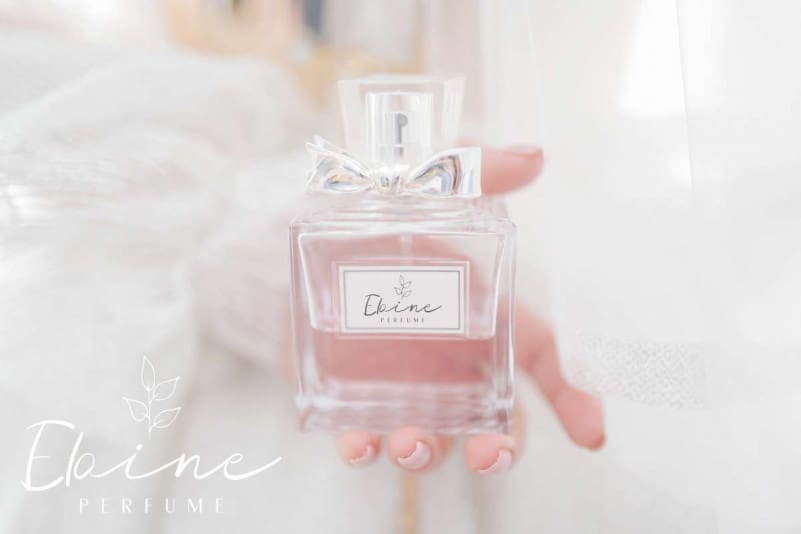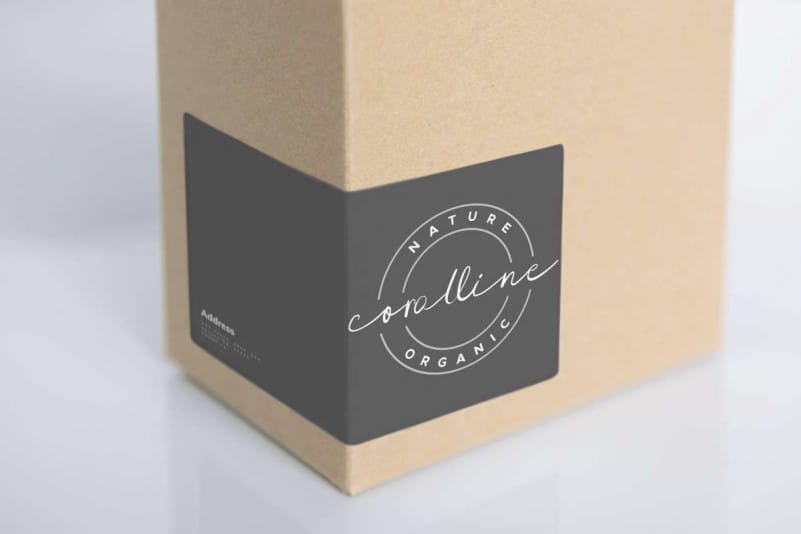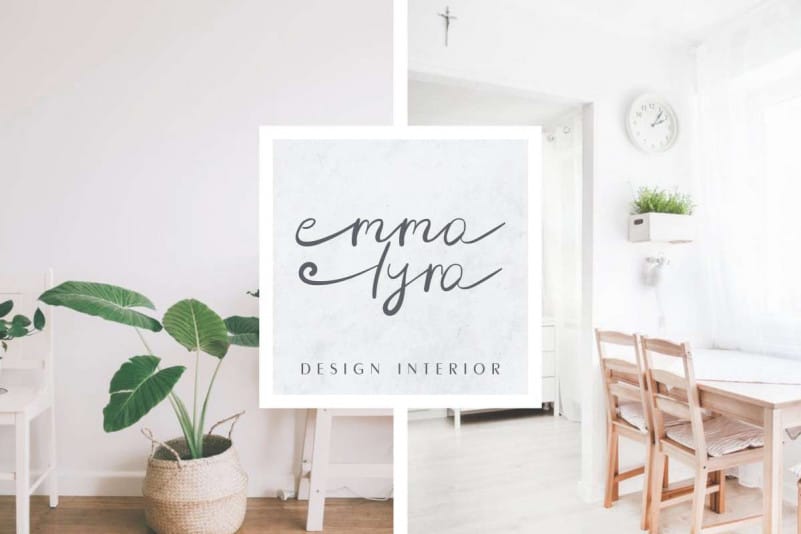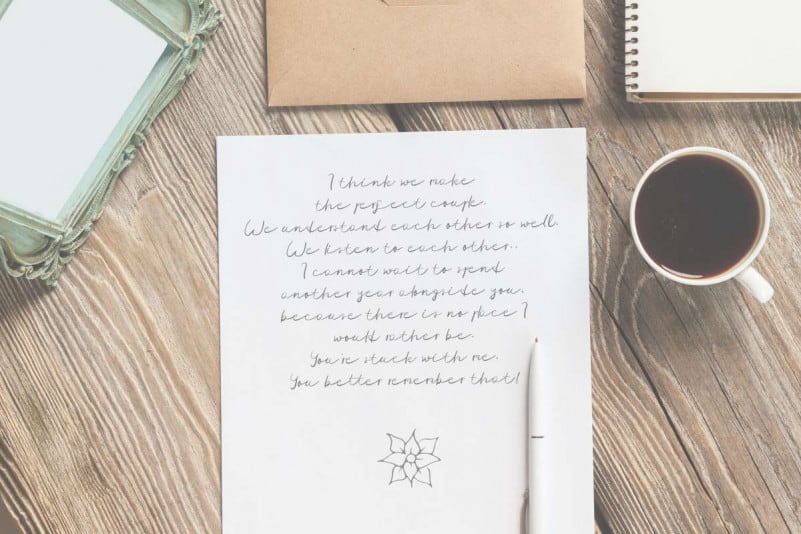
Shadow Over Signature Script Font
Shadow Over Signature Script Font is an exclusive brush script typeface with hand style. This font has a great characters set, perfectly managed with well spaced and kerning. The theme style of this font will be natural look, luxury, glamour, vintage, femine and classic brush calligraphic style. You wont find any where else, the font like Shadow Over Font
Shadow Over Signature Script Font will be great for any projects including : branding, logo, stationery, business card, signage, flyer, brochure, comic, cartoon etc. Almost all industries will be match for this typeface: wedding, events, real estate, architect, law firm, florist, gardening, makeup artist, travel, hotel, musician etc